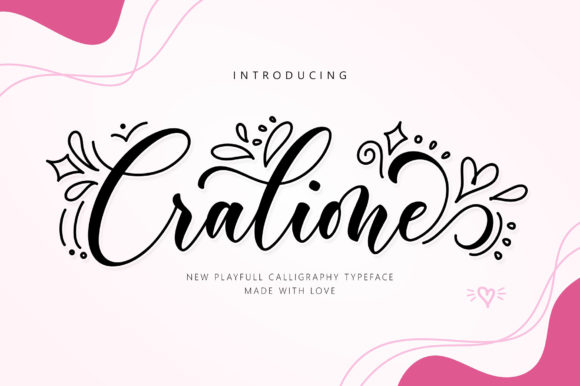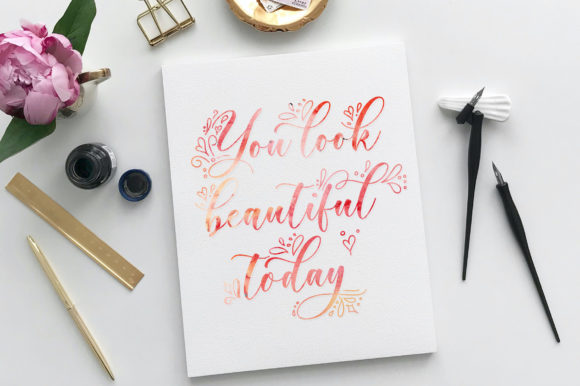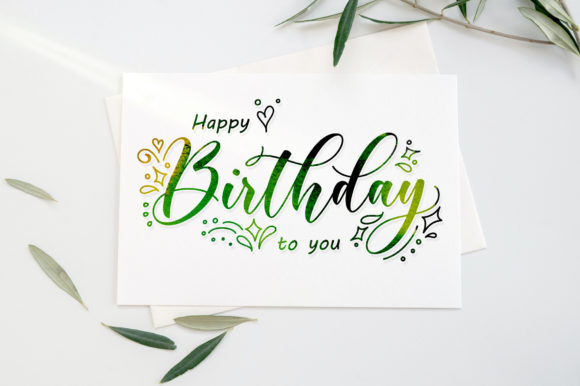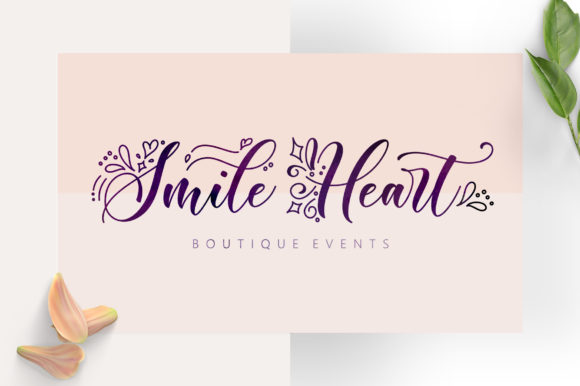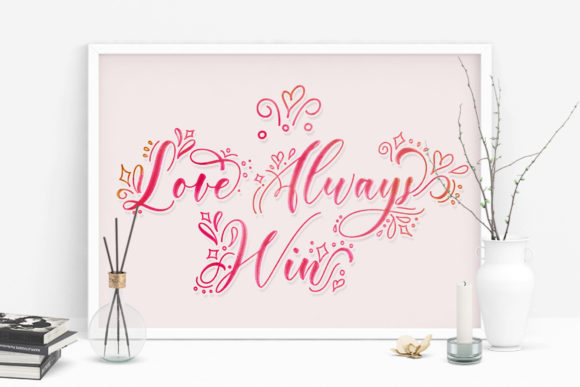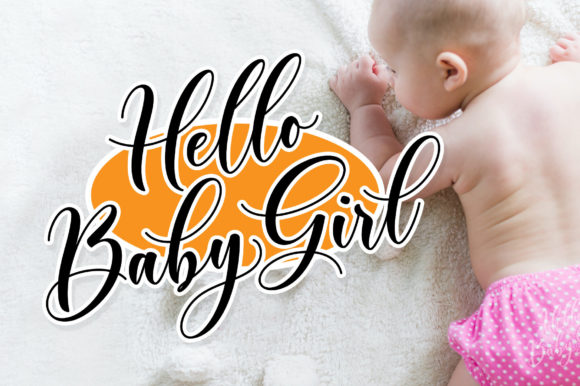
Cralione Script Font Font
About Cralione Script Font
Cralione Script is a dazzling script font. This font is neatly crafted and highly detailed. Whatever the topic, this font will be a wonderful asset to your font library, as it has the potential to enhance any creation.